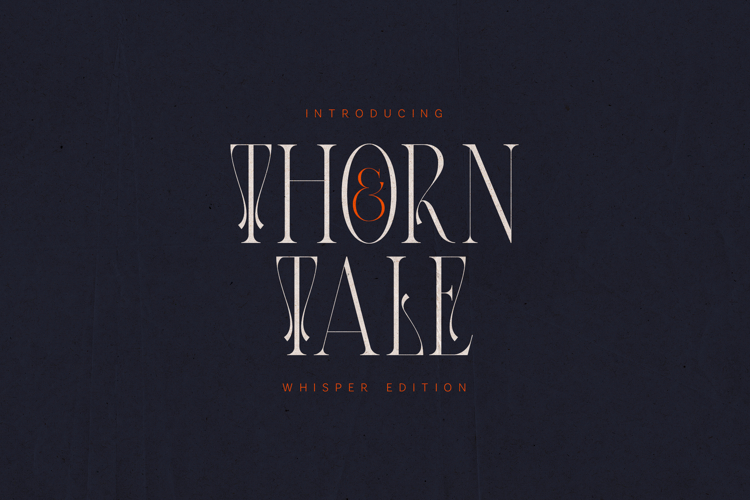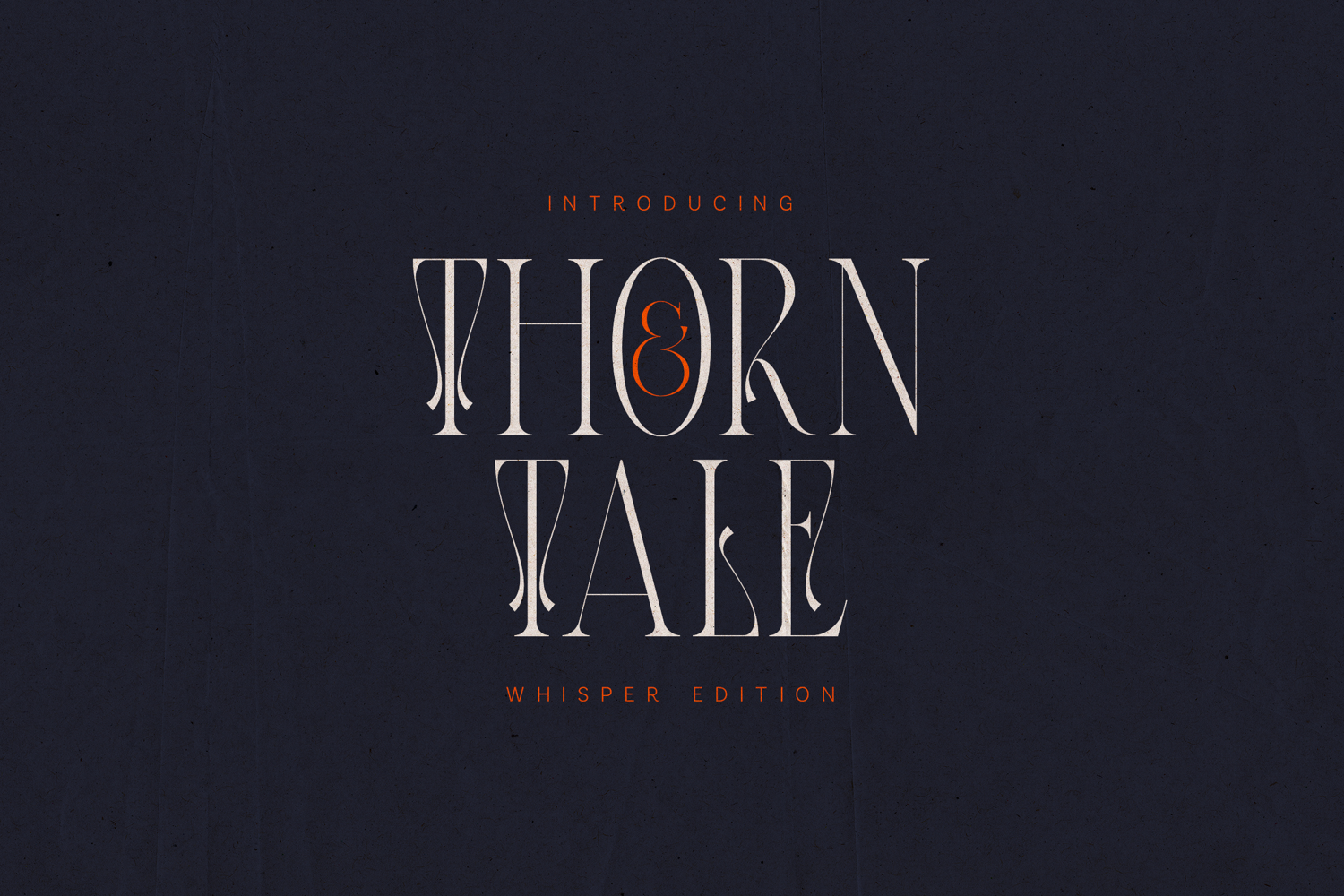
Thorn Tale Whisper Edition Elegant Serif Font
Thorn Tale – Whisper Edition is an elegant high-contrast serif font crafted for poetic typography and refined visual storytelling. With sharp serifs, delicate curves, and expressive details, this font is ideal for editorial design, book covers, luxury branding, fashion projects, quotes, invitations, and cinematic typography.
The Whisper Edition introduces a softer, more atmospheric interpretation of the Thorn Tale family, balancing dramatic contrast with subtle grace. Its distinctive letterforms create an emotional, narrative-driven presence that shines in headlines and artistic compositions.
Thorn Tale – Whisper Edition includes a full character set with extensive multilingual support, numerals, punctuation, and special symbols, making it suitable for both print and digital applications.
• Uppercase & lowercase letters
• Numbers & punctuation
Thorn Tale – Whisper Edition is designed for creatives who seek elegance, emotion, and timeless storytelling through typography.